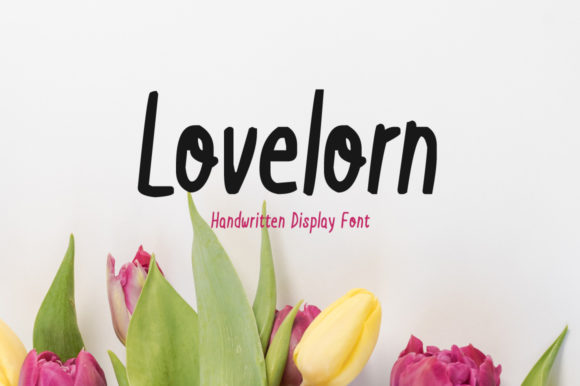
Welcome to the exquisite realm of Lovelorn Font, where elegance and passion intertwine. Enter a world of boundless creativity with this enchanting font family, a masterpiece crafted by the renowned Shattered Notion, that will leave you breathless. Discover the alluring charm of Lovelorn's display font, a symphony of sophistication and allure.
Lovelorn's captivating personality embodies the spirit of love and longing, making it the perfect choice for your most heartfelt expressions. Adorn your designs with a captivating aura that speaks straight to the heart. From wedding invitations to love letters, Lovelorn effortlessly captures the essence of romance, transforming your words into a visual serenade.
Indulge in the boundless versatility of Lovelorn, a font that transcends boundaries. Its graceful curves and delicate details bring a touch of elegance to any project. Whether you're crafting logos, posters, or social media graphics, Lovelorn beautifully complements your artistic vision. Let your creativity soar as you explore the endless possibilities of this typographic treasure.
Experience the seamless harmony of Lovelorn's clean lines and enchanting flow. Each letter dances upon the page, creating a visual symphony that captivates the eye. Lovelorn invites you to embark on a journey of artistic exploration, where your imagination knows no limits. Unleash the power of your unique voice with this exceptional font, and watch as your creations bloom into masterpieces.
Lovelorn is more than just a font; it's an expression of your innermost desires, a reflection of your authentic self. Whether you're a seasoned designer or simply seeking to add a touch of romance to your life, Lovelorn is your perfect companion. Embrace the beauty of love and expression, and let Lovelorn guide you toward a world of heartfelt designs.